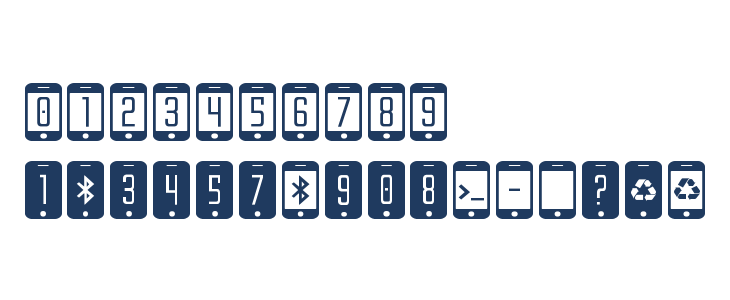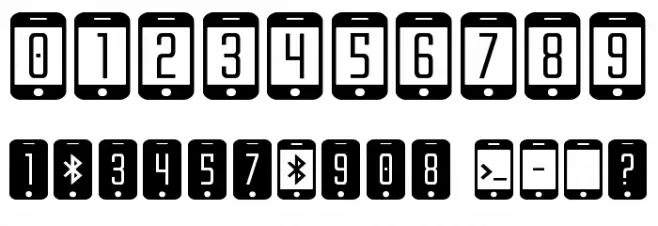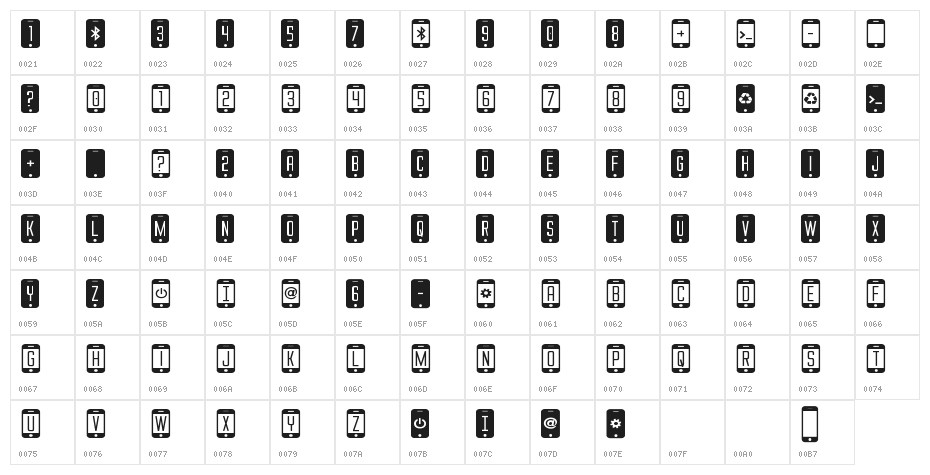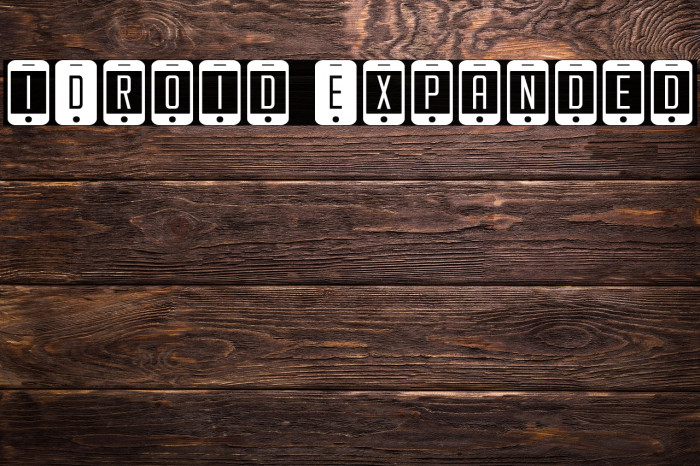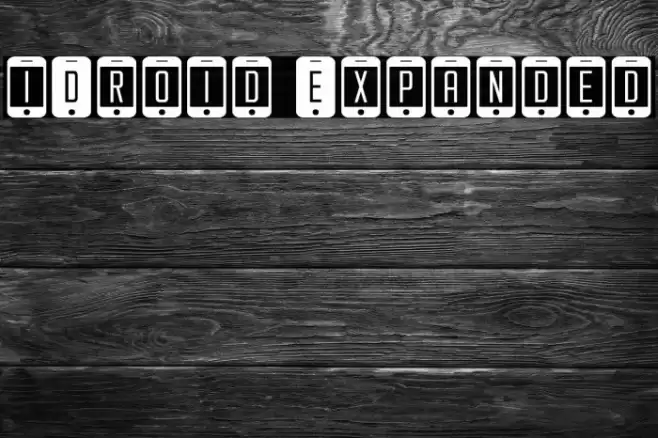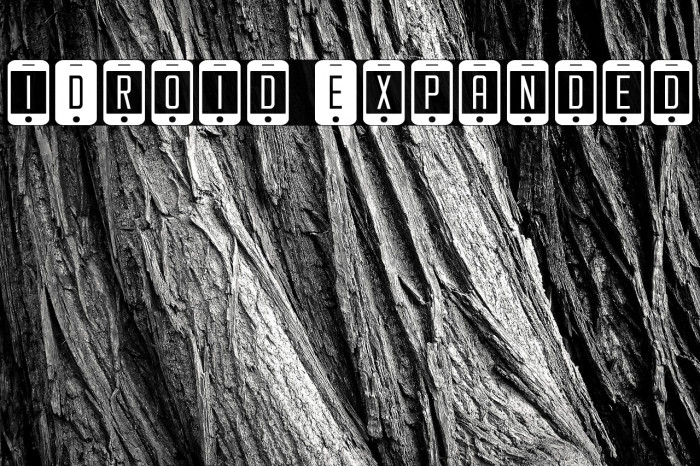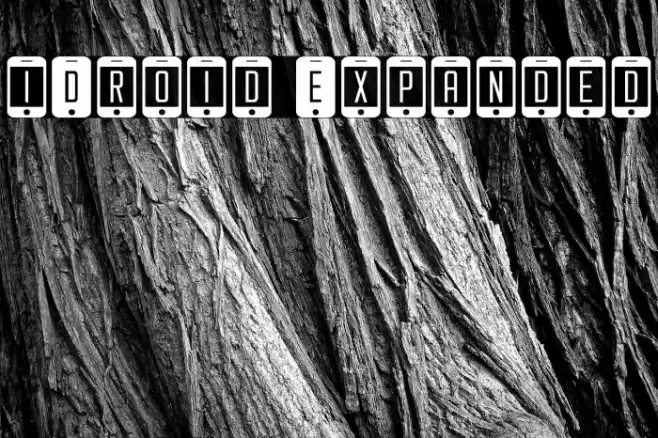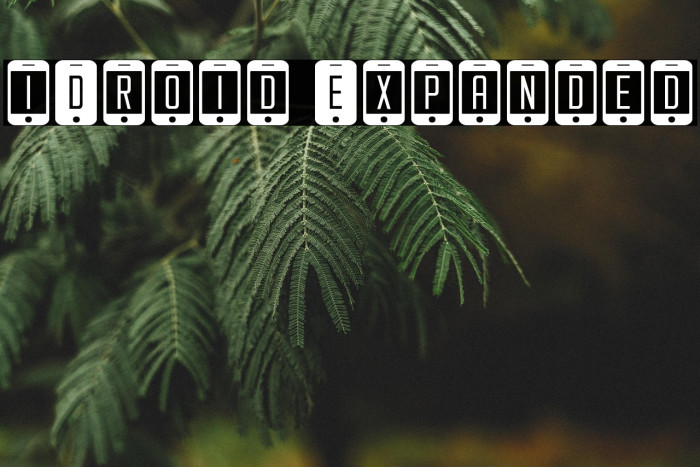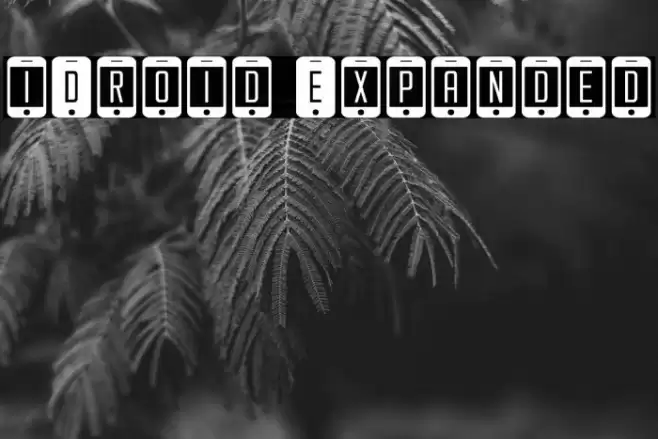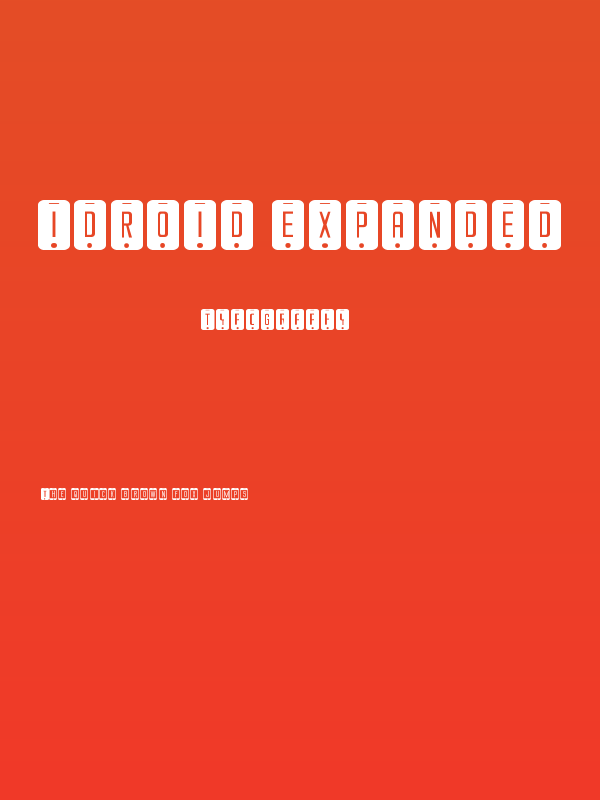
iDroid Expanded Font
iDroid Expanded Description
This font features a unique design where each character is encapsulated within a smartphone-like shape, complete with a small circle at the bottom resembling a home button. The characters themselves are bold and sans-serif, providing a modern and tech-inspired aesthetic. The uppercase and lowercase letters maintain a consistent style, with the lowercase being slightly smaller but equally bold. Numbers and special characters follow the same design principle, ensuring uniformity across all glyphs. The font's distinct style makes it ideal for projects that require a futuristic or digital theme.
| Use Case | Logos, Headlines, Digital interfaces |
| Proposed Projects | Ideal for tech-related branding, app design, digital marketing materials, and futuristic-themed projects. |